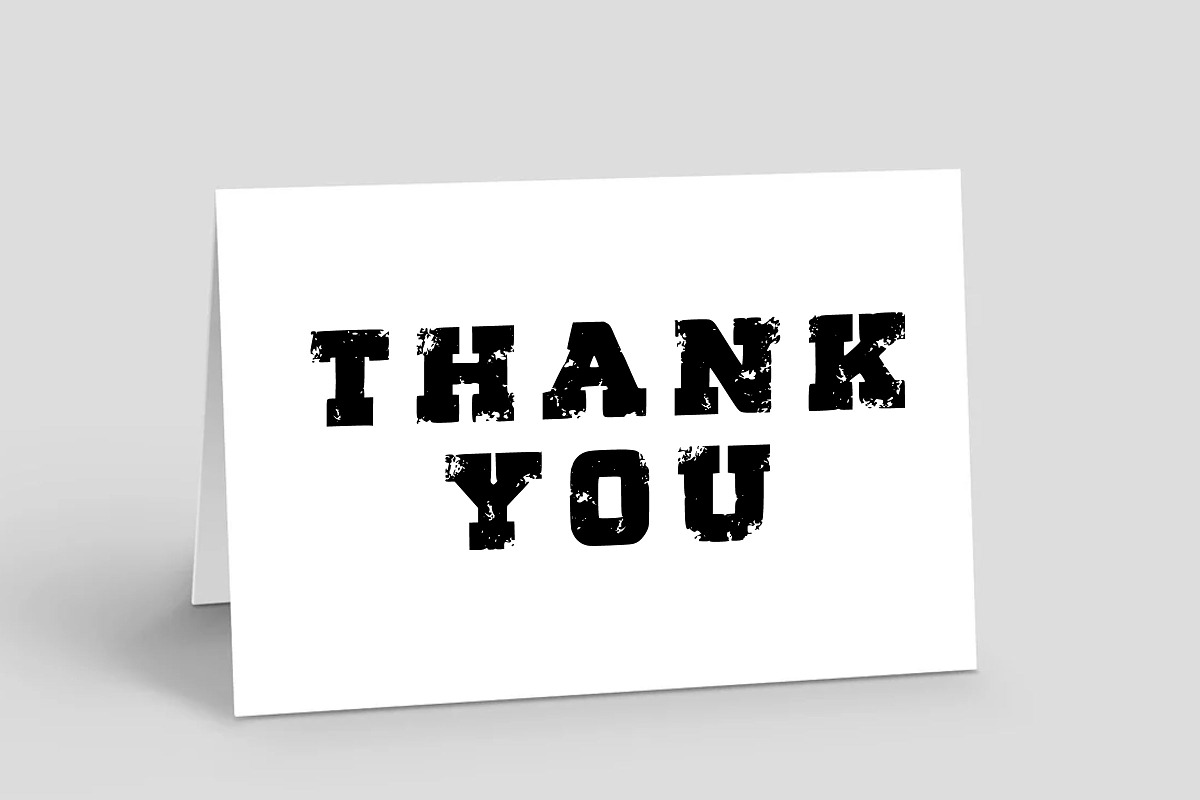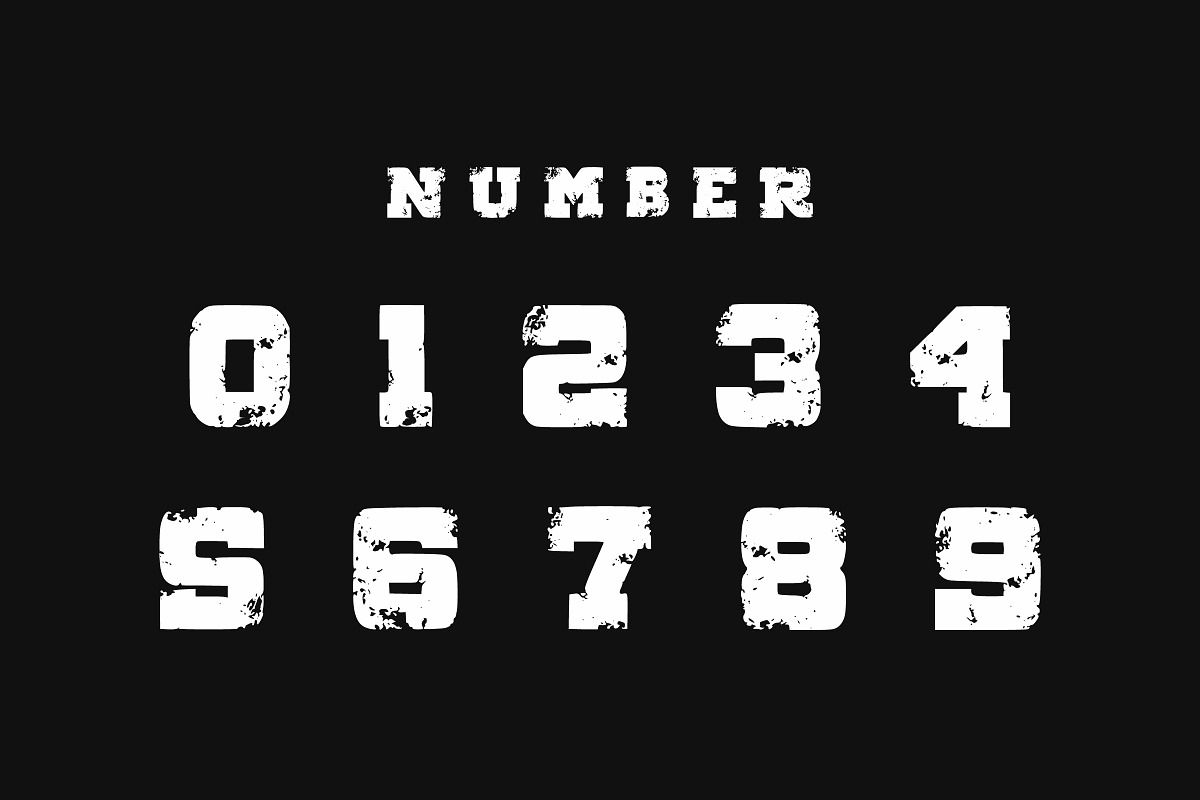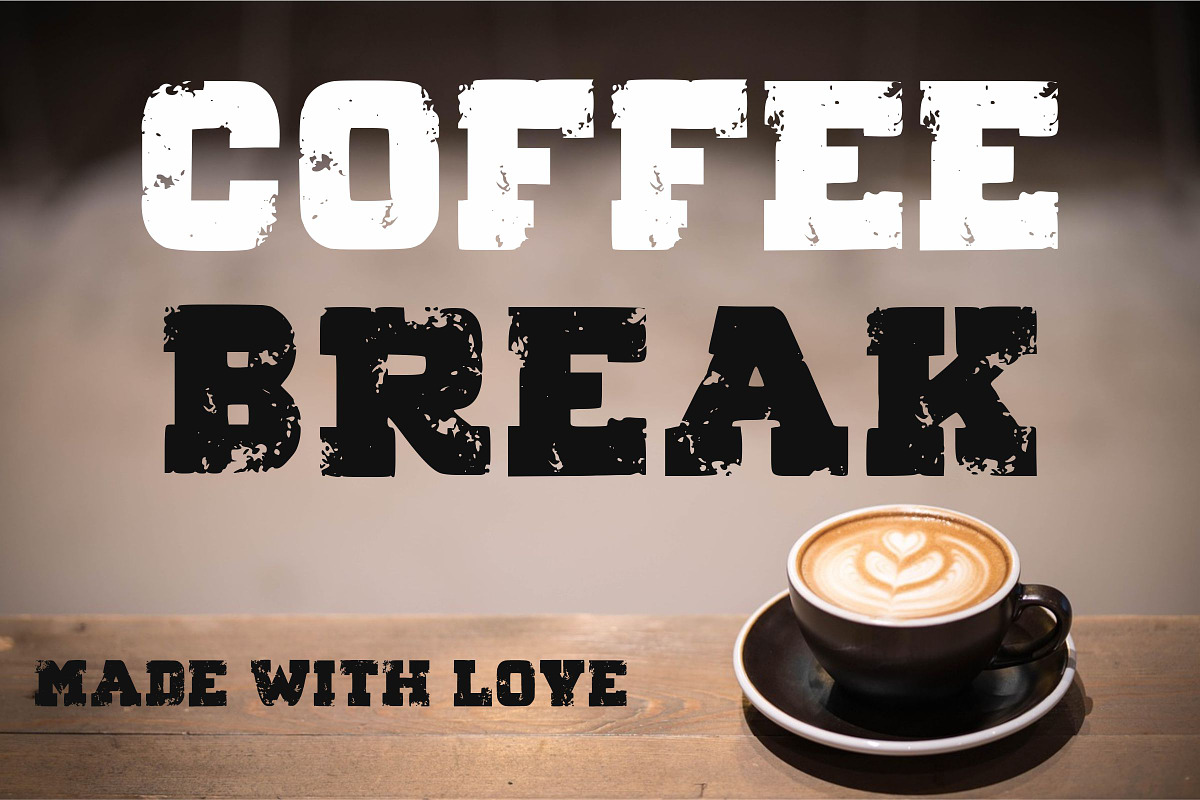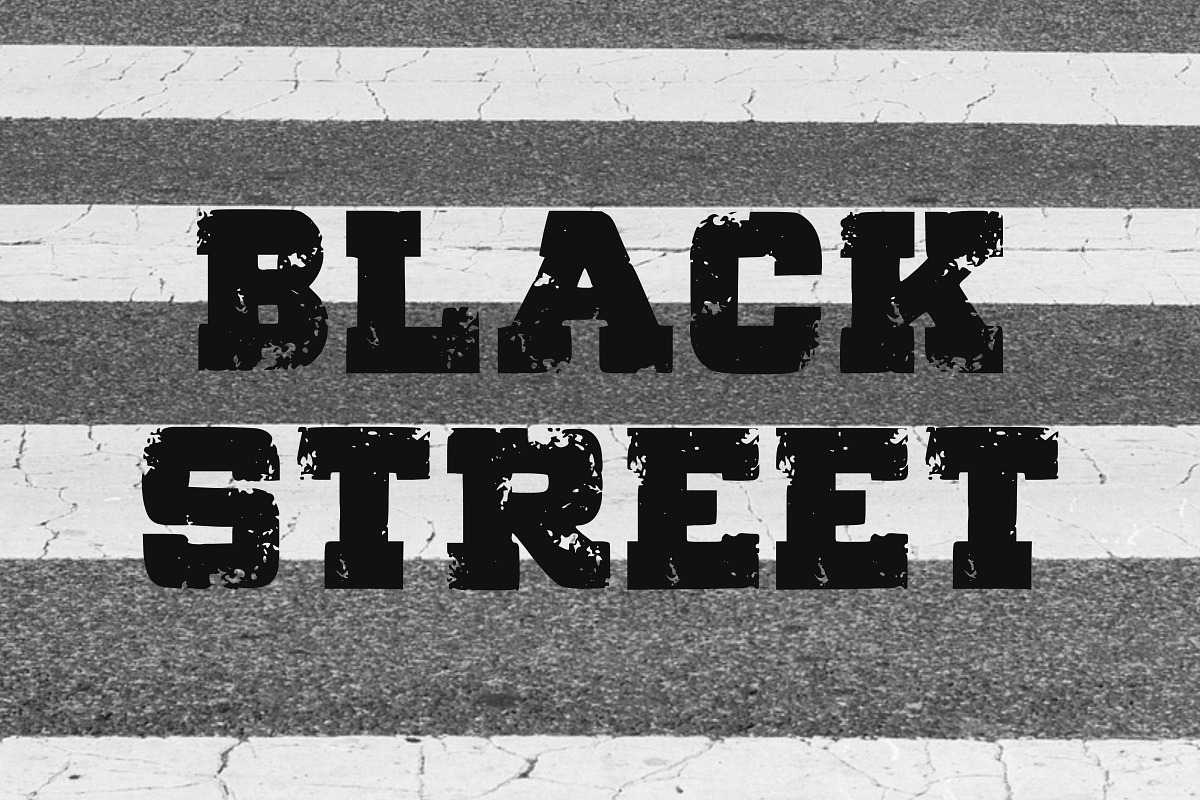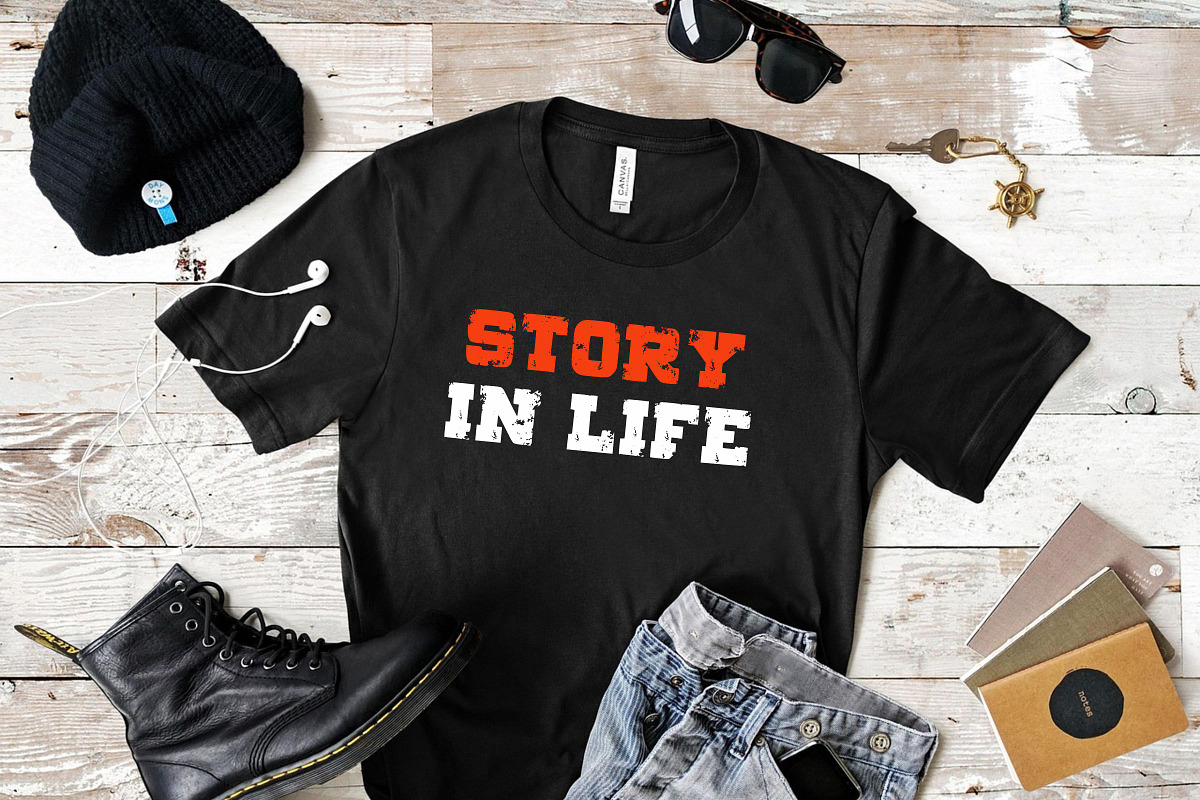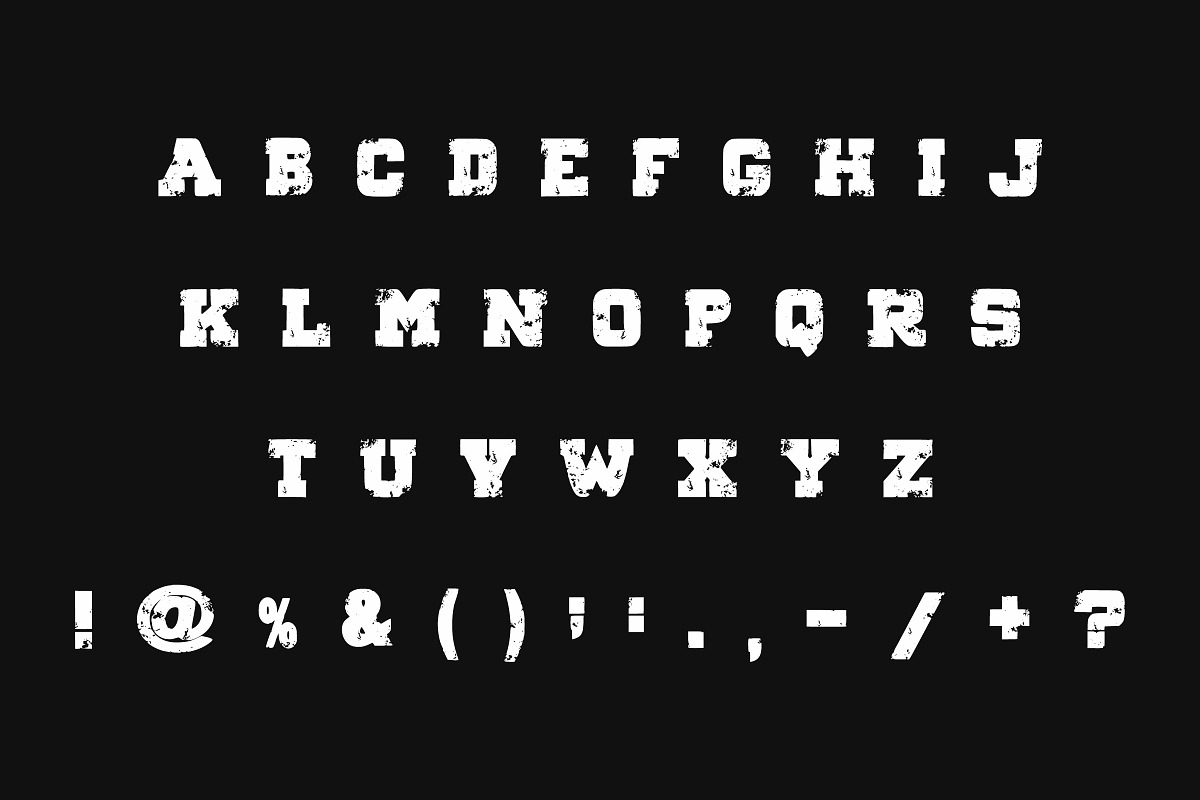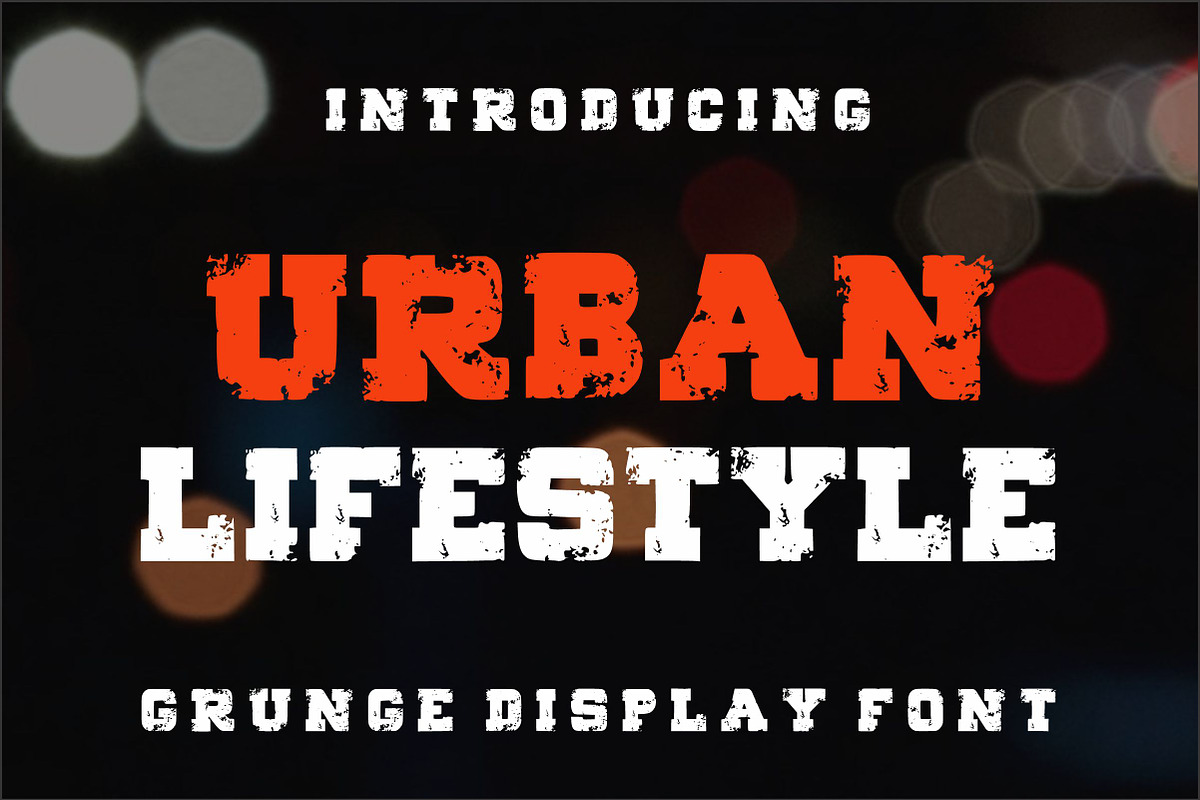
Urban Lifestyle
Urban Lifestyle is an authentic grunge distressed classic display font, inspired by college typography.
Capture the raw, unrefined energy of the street with Urban Lifestyle, a high-impact Grunge Display Font perfect for rugged, contemporary design.
Defined by its heavy, textured distress and uneven, weathered edges, this typeface gives every word an authentic, worn-out, and impactful look, ideal for bold statements.